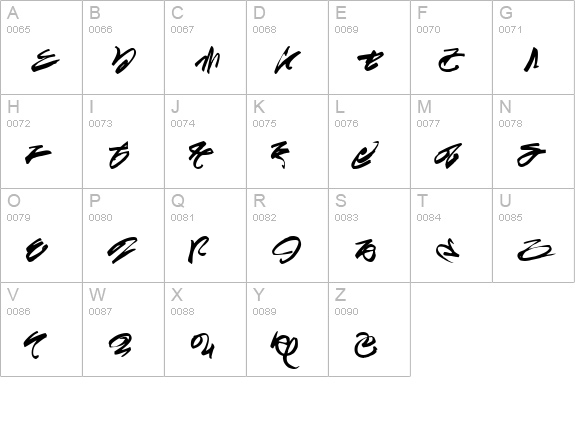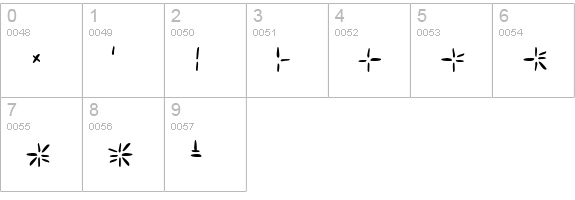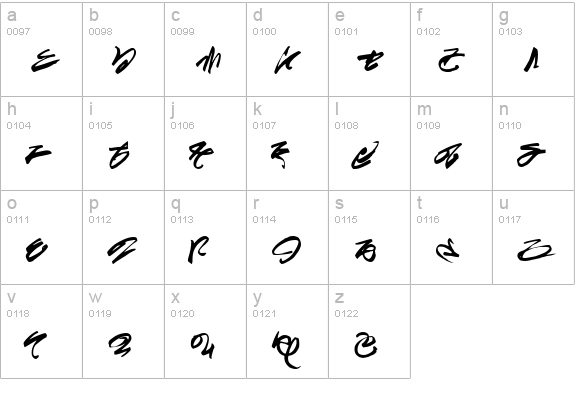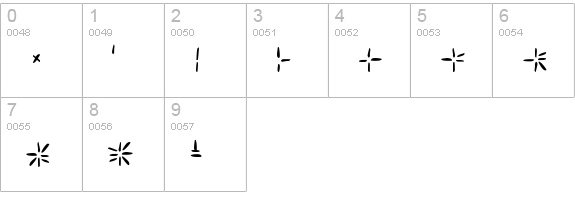
Miskatonic Font Details
Miskatonic font is a bold and distinctive typeface that exudes a sense of mystery and intrigue. Inspired by the ancient and arcane, this font is perfect for projects that require a touch of the supernatural or the occult. With its sharp angles and intricate details, Miskatonic font commands attention and adds a touch of sophistication to any design. The best part? Miskatonic font is available for free download at FontsMarket.com. Simply visit the website to get your hands on this captivating font and unleash its dark and enigmatic charm in your projects. Whether you're working on a poster, website, logo, or any other creative endeavor, Miskatonic font is sure to make a powerful statement and leave a lasting impression on your audience. Download it today and add a touch of the otherworldly to your designs.